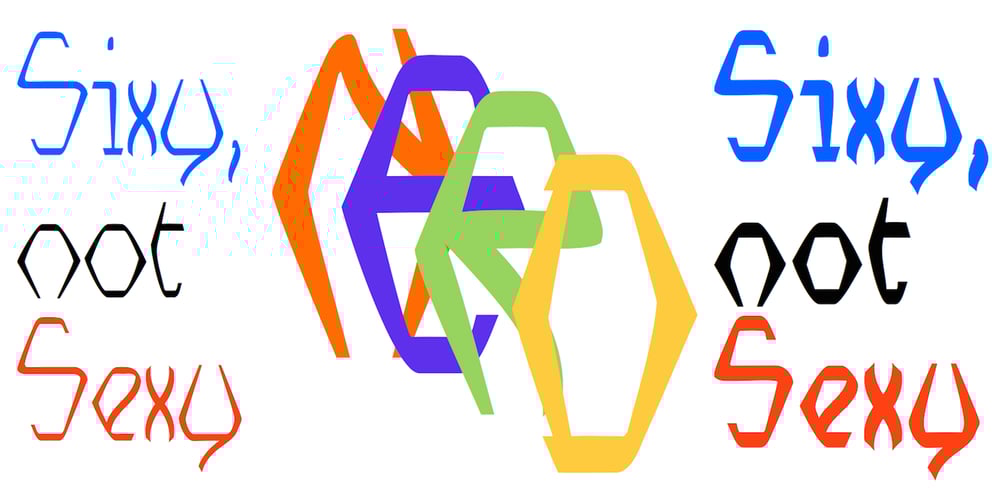
Nerdish Hex
Nerdish Hex font
Nerdish Hex Font Family was designed by Robert Schenk and published by Ingrimayne Type. Nerdish Hex contains 2 styles and family package options. NerdishHex is a hexagonal distortion of NewNerdish that I thought was rather interesting.